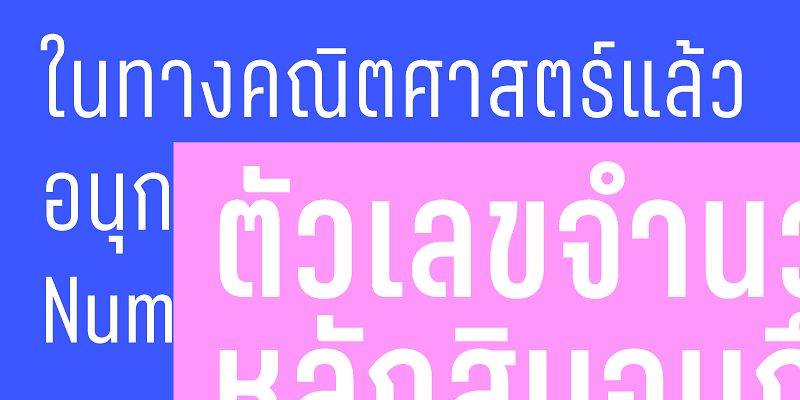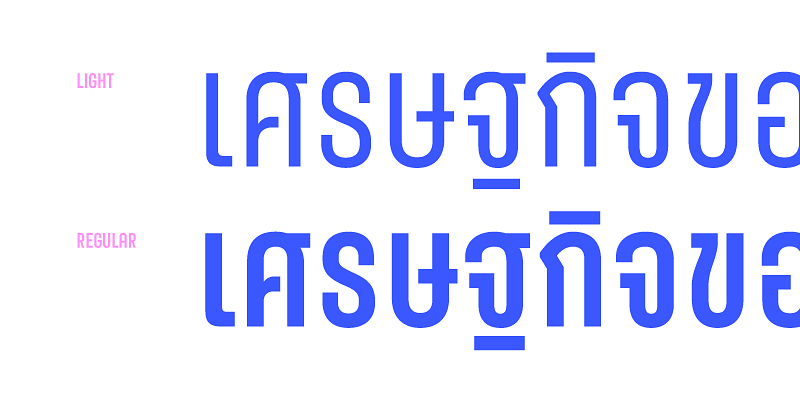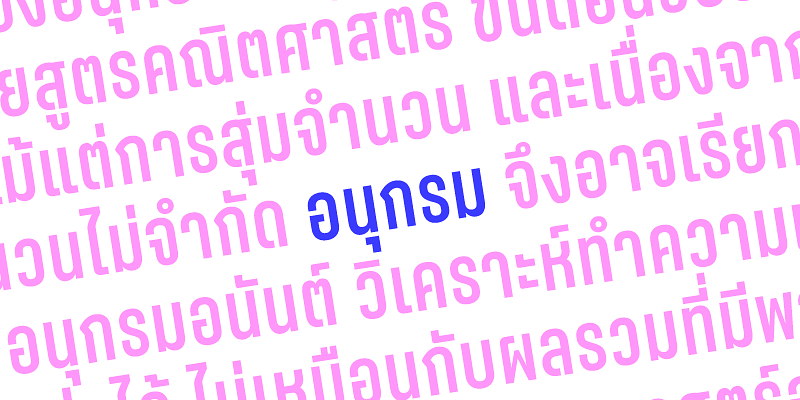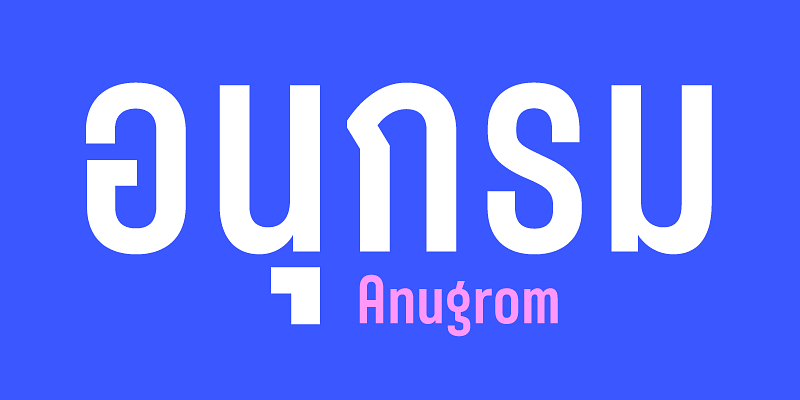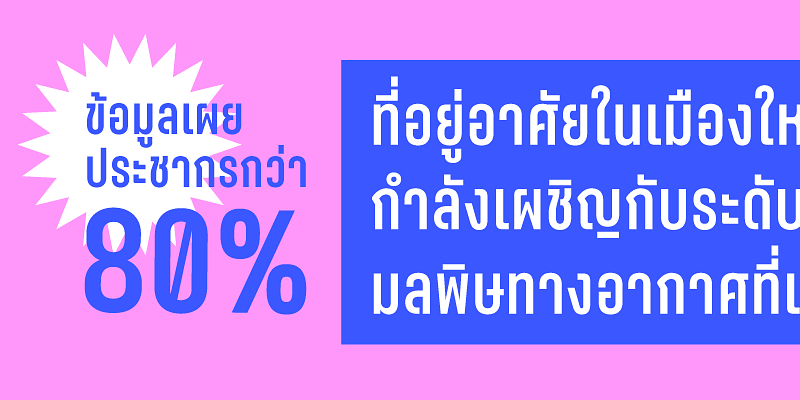
A strict, geometric loopless Sans Serif Family with closed forms. This typeface is ideally suited for publication, corporate identity, branding, as well as web and screen design.